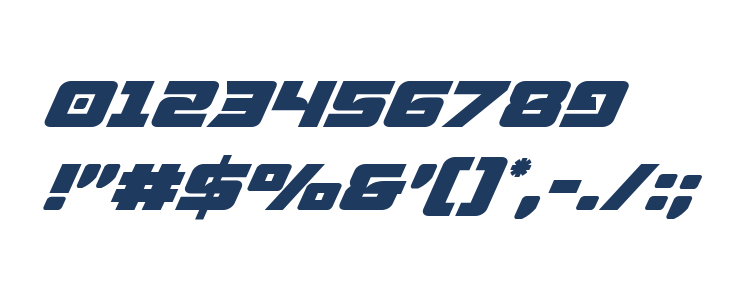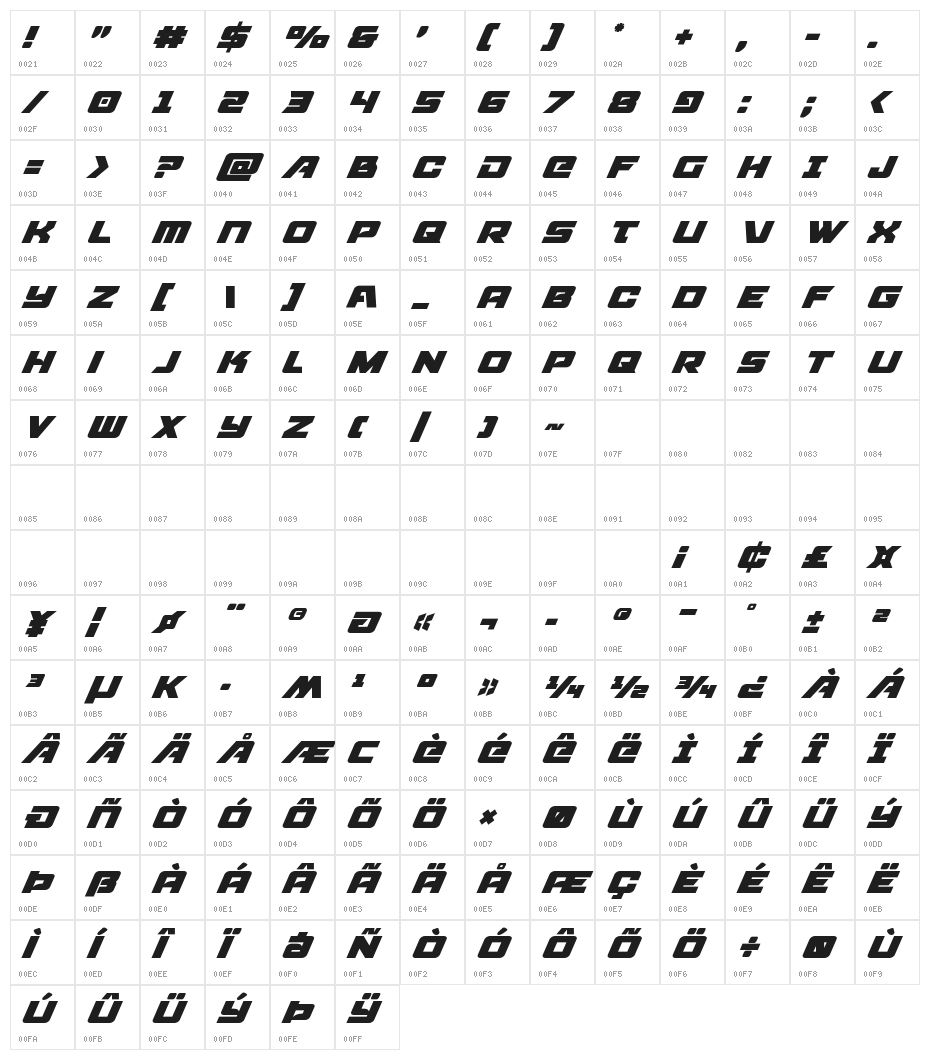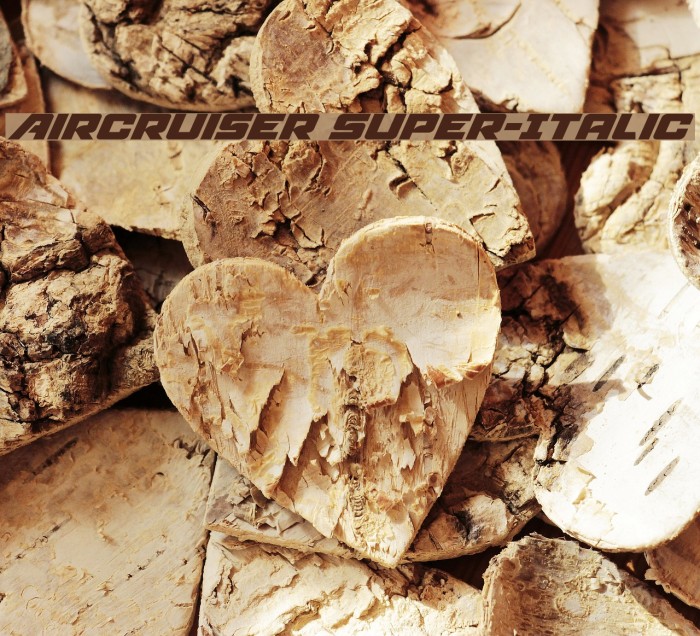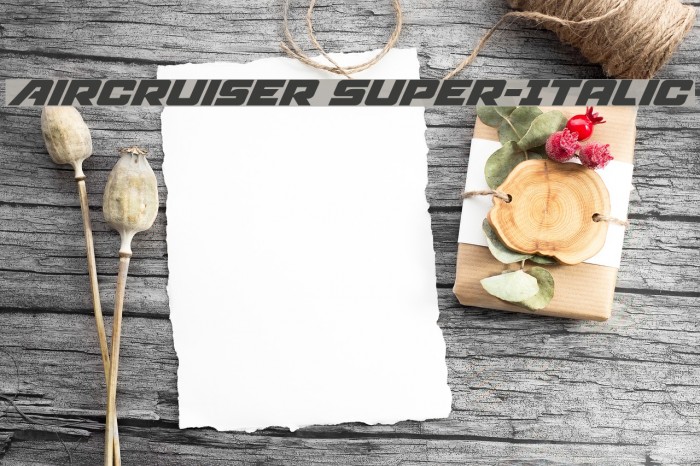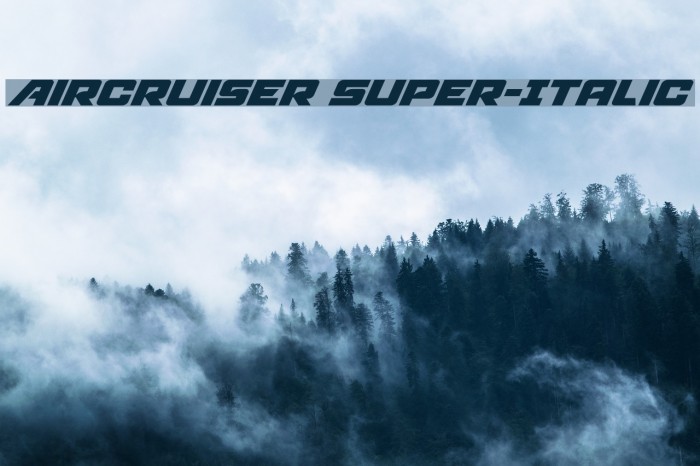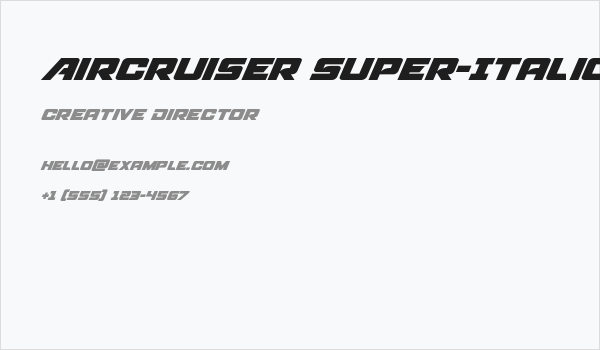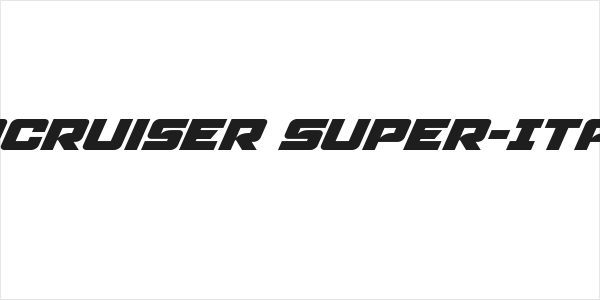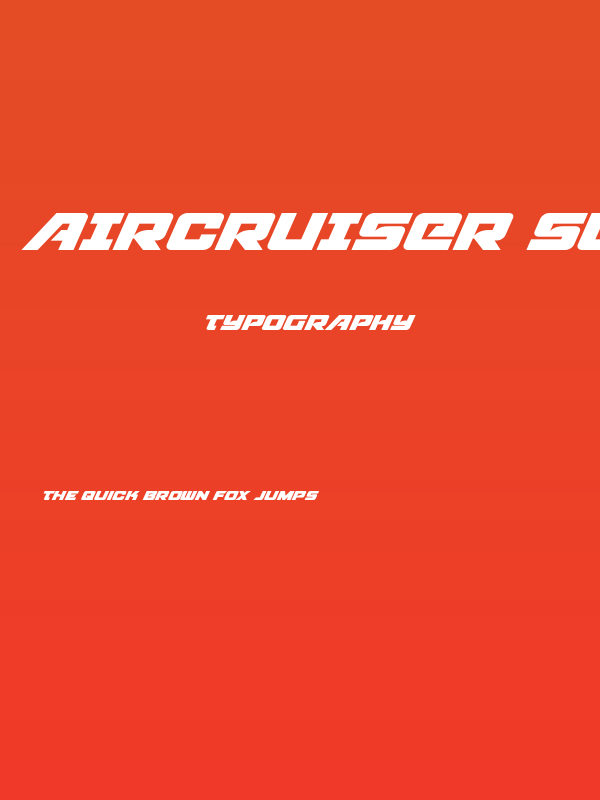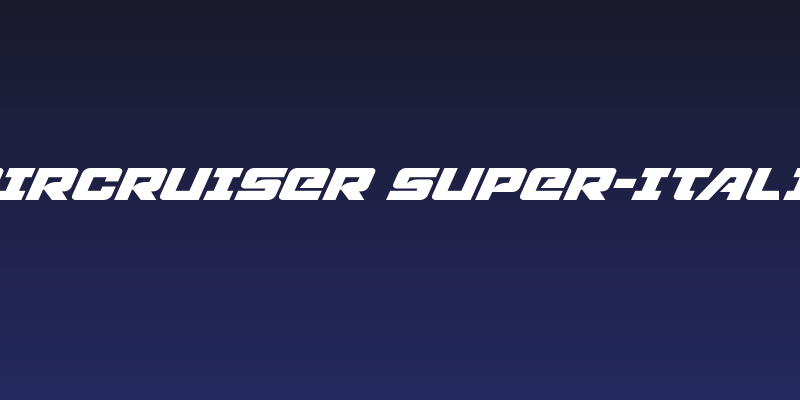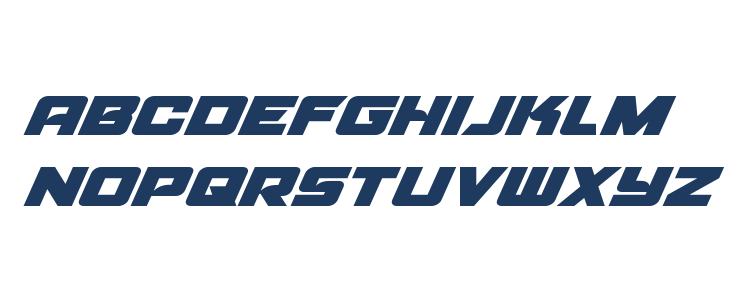
Aircruiser Super-Italic Font
Aircruiser Super-Italic Description
This font features a bold, italicized style with a futuristic and dynamic appearance. The characters are designed with sharp angles and a forward-leaning posture, giving a sense of motion and speed. The uppercase and lowercase letters maintain a consistent style, with the lowercase being slightly smaller but equally bold. Numbers and special characters are designed to match the angular and italicized theme, ensuring uniformity across all glyphs. The overall design is sleek and modern, making it suitable for projects that require a strong visual impact.